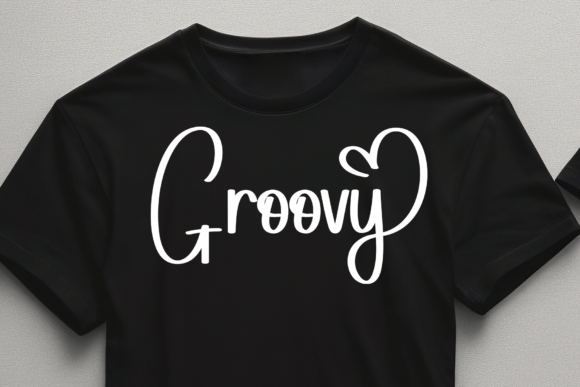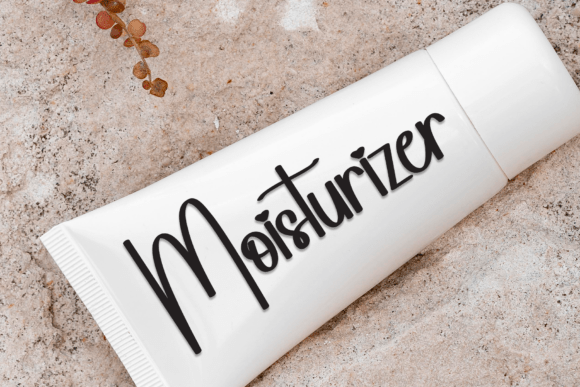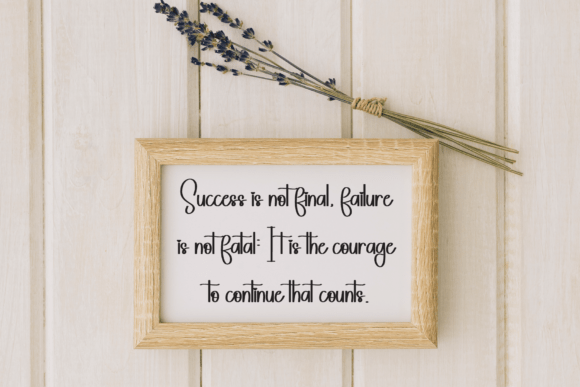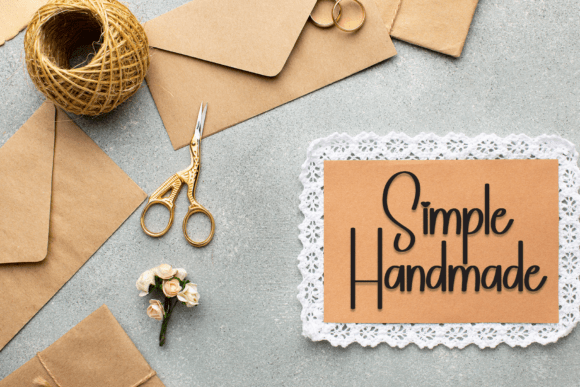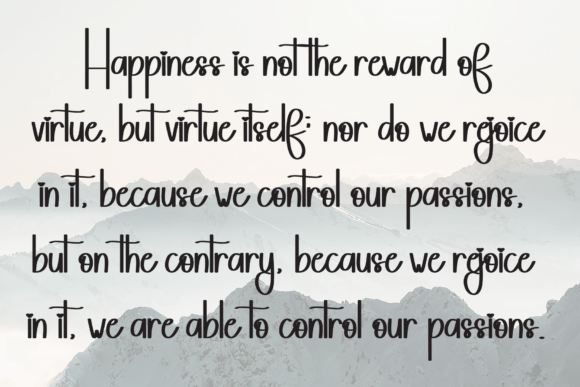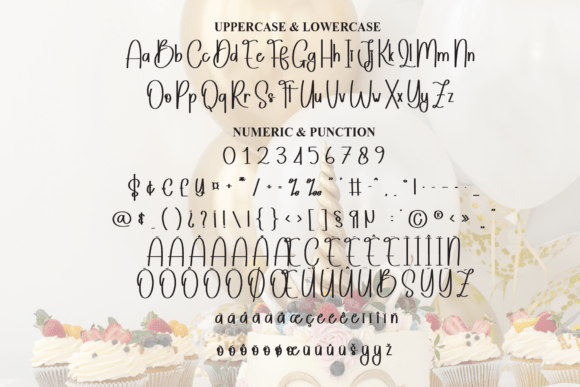
Introducing the Ultimate Birthday Font: Elevate Your Designs with Our Special Creative Products
Are you tired of using the same old fonts for your designs? Do you want to add a touch of personality and whimsy to your projects? Look no further! Our Birthday Font is here to revolutionize the way you create, with a range of special creative products that will give you an extraordinary experience. In this article, we’ll dive into the world of our exclusive font, exploring its features, benefits, and endless possibilities for designers and crafters alike.
The Latest Style Letters for Every Project
Our Birthday Font boasts the latest style letters that are perfect for a wide range of applications, including wall displays, wedding invitations, social media post logos, advertisements, product packaging, product designs, labels, photography, watermarks, invitations, stationery, and any project that requires tasteful handwriting. With this font, you’ll be able to add a unique and creative twist to your designs, setting them apart from the rest.
Whether you’re a professional designer or a crafty DIY enthusiast, our Birthday Font offers a world of creative possibilities. Here are just a few benefits you can expect:
- Add a personal touch to your designs: With our unique and stylish font, you can add a touch of personality to your projects.
- Elevate your brand: Use our font to create stunning visual content that sets your brand apart.
- Perfect for special occasions: Our Birthday Font is ideal for creating custom birthday cards, invitations, and decorations.
Endless Possibilities for Your Projects
With our Birthday Font, the possibilities are endless. Here are a few ideas to get you started:
- Create stunning wall art and displays for your home or office.
- Design beautiful wedding invitations, save-the-dates, and other stationery.
- Elevate your social media presence with custom logos and graphics.
- Develop eye-catching advertisements and marketing materials.
- Design unique product packaging and labels that stand out.
In conclusion, our Birthday Font is the perfect addition to any designer’s or crafter’s toolkit. With its unique and stylish letters, compatibility with popular design software, and long-term support, this font is sure to elevate your designs and give you an extraordinary experience. So why wait? Get your hands on our Birthday Font today and start creating stunning visual content that sets you apart!